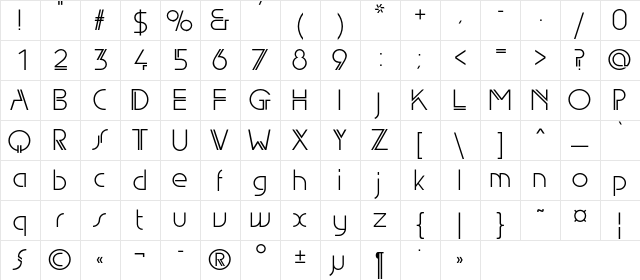
EdgeLine Regular
Design Context for EdgeLine Typeface
EdgeLine takes a measured approach to typography — its balanced proportions and neutral character make it a reliable workhorse for both digital and print work.
Pro Tip: Pair EdgeLine with a font of contrasting weight or personality to build a more expressive typographic hierarchy.